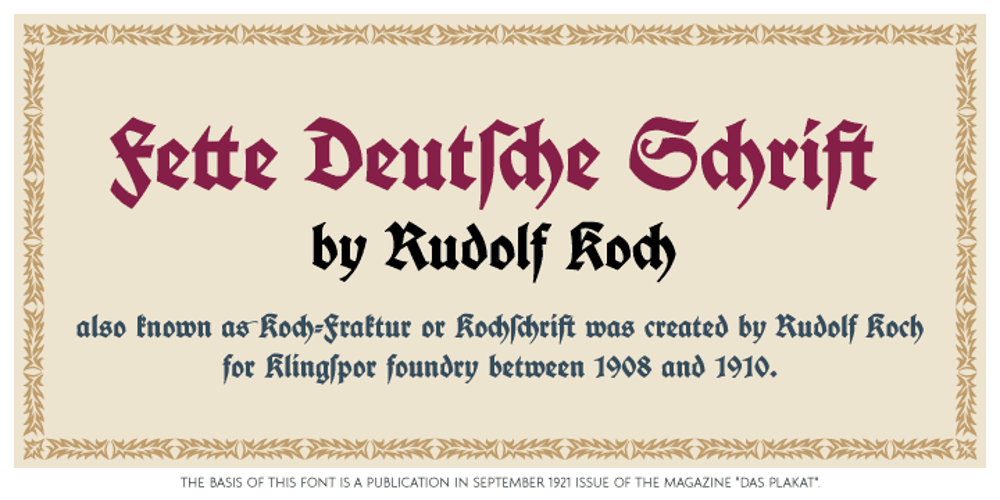
Fette Deutsche Schrift Font Family was designed by Kristians Šics and published by Lamatas un Slazdi. Fette Deutsche Schrift contains 1 styles and family package options. Fette Deutsche Schrift also known as Koch-Fraktur or Kochschrift was created by Rudolf Koch for Klingspor foundry between 1908 and 1910. The basis of this font is a publication in the magazine “Das Plakat” of September 1921. The font contains swash capitals to use as dropcaps, contextual alternates, glyphs for line endings, ligatures, discretional ligatures for use in German, ornaments and other OpenType features. It supports all the European languages using Latin alphabets (including slashed S and slashed long s used in Latvian old orthography till 1930s).